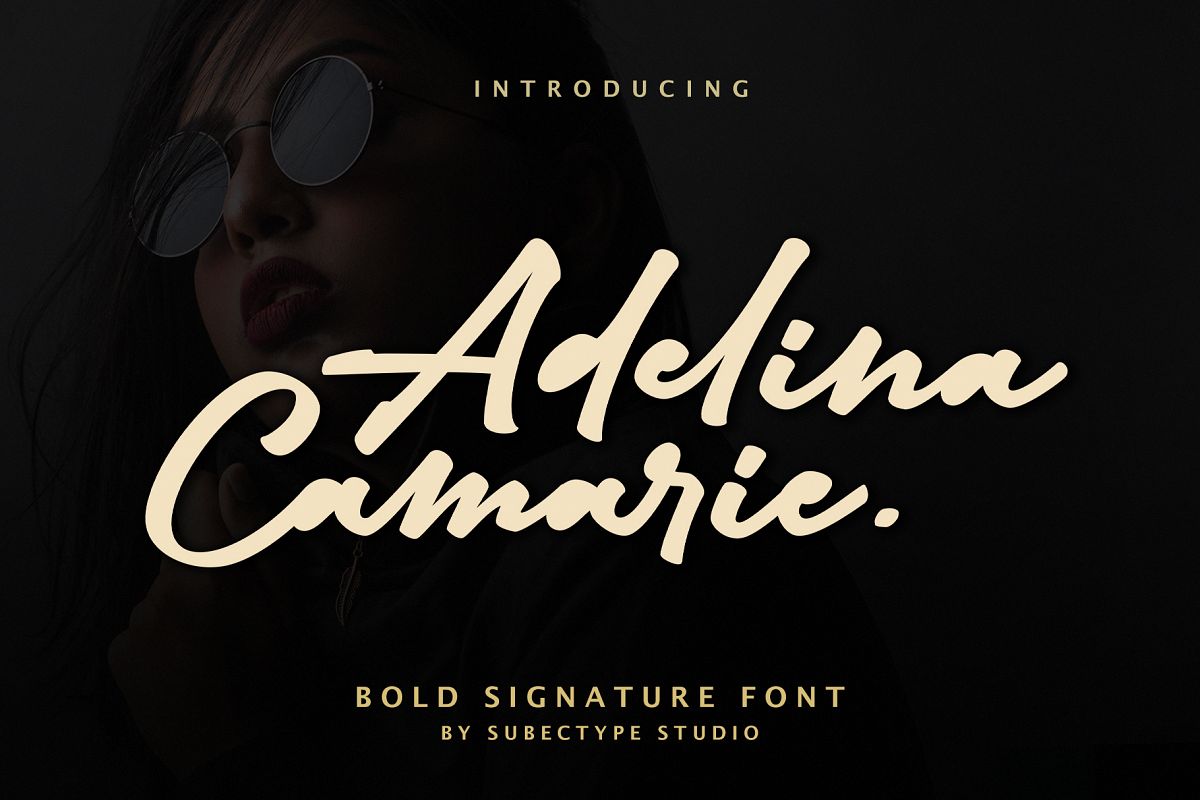
Adelina Camarine Bold Signature Font
Adelina Camarie
'Adelina Camarie' is a Bold Signature Font script with a natural & stylish flow. This collection of scripts is perfect for personal branding. It was made with the intention to be used for your personal branding. But, this works well for many applications. Everything from personal branding, photography signature, advertising could benefit from this collection of this bold signature fonts.These typefaces work well for many different aesthetics. They work well with something like 'cosmetics' for example but would also work well with Liquor Labels, Signage, & any type of signature-styled logo.